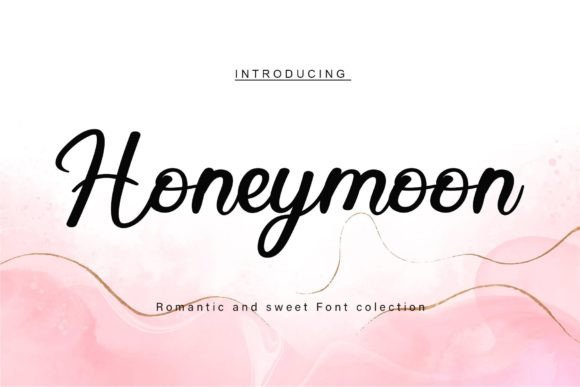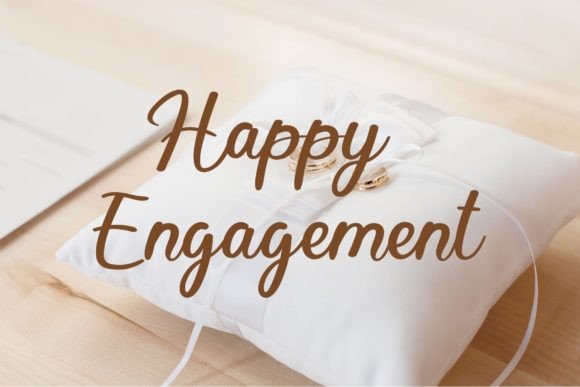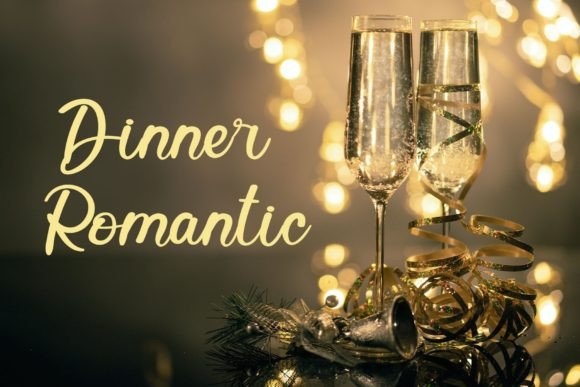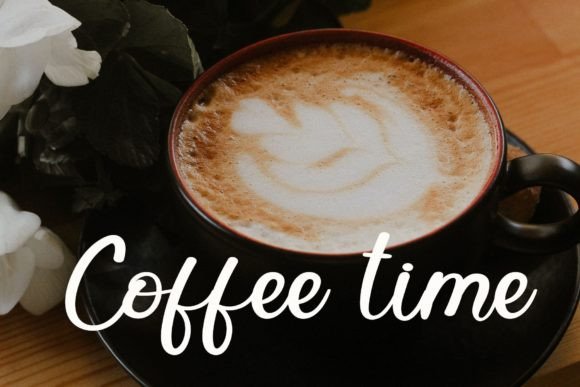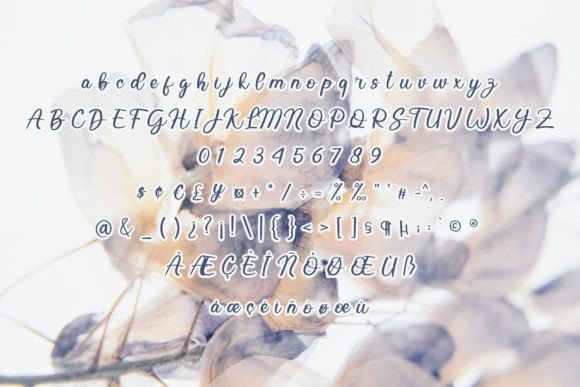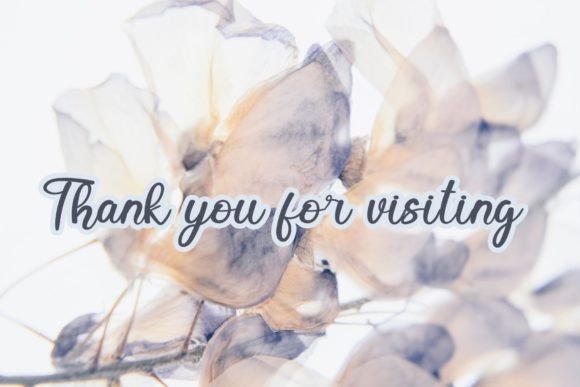
Honeymoon Font
Honeymoon is a romantic and sweet calligraphy script font, where characters gracefully dance along the baseline, creating a captivating and luxurious spark in any creative design or project you wish to develop.
This font is specifically designed to infuse a sense of romance and sophistication into your projects. The calligraphic script style of Honeymoon adds an elegant and handcrafted touch, making it well-suited for a variety of applications.
For creative designs, Honeymoon ensures a luxurious and visually pleasing experience. Whether used for branding, invitations, posters, or any other design endeavor, the font elevates the overall aesthetic with its romantic and dynamic script.
In branding, Honeymoon contributes to a distinctive and visually appealing identity. Its luxurious spark adds a touch of opulence to logos, packaging, and promotional materials, ensuring that your brand stands out with elegance.
Imagine this font on wedding invitations or event materials, where it imparts a sense of romance and celebration. The flowing characters create a visually pleasing and harmonious design that enhances the overall atmosphere.
In conclusion, Honeymoon is more than just a font; it’s a creative tool meticulously crafted to bring a romantic and luxurious spark to your designs. Whether used for formal or expressive projects, this calligraphy script font ensures that your creations radiate with sophistication and charm.